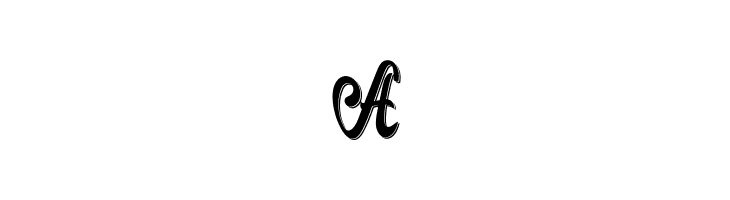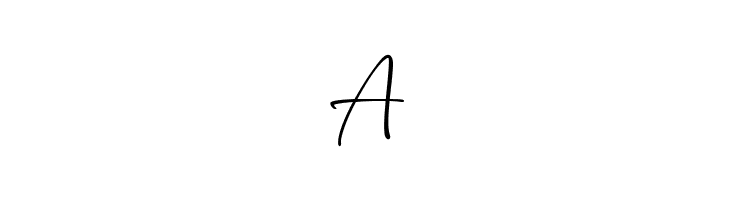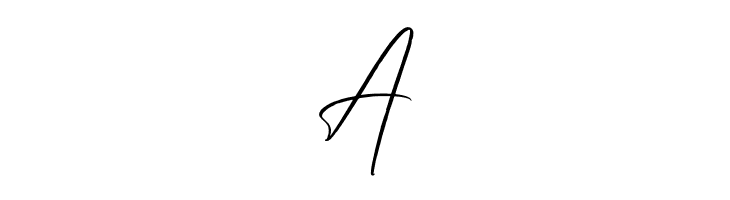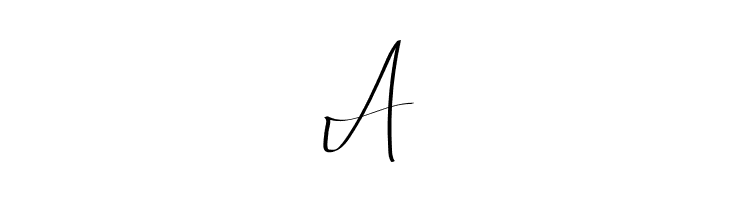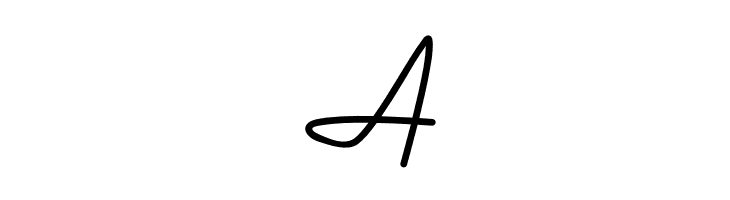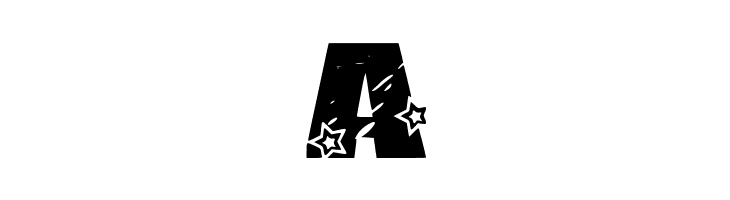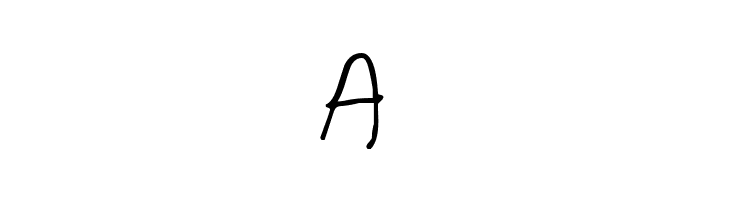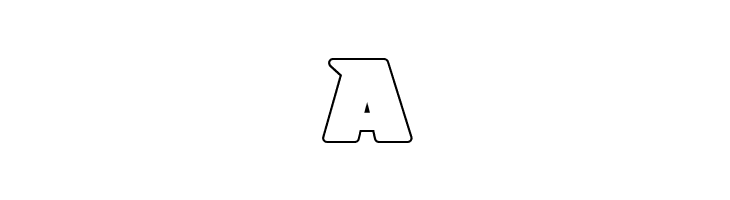
A flowing, cursive font with elegant, connected strokes.
A flowing, cursive script with elegant, handwritten characteristics.
A modern, elegant script font with flowing, cursive letters and intricate swashes.
A bold, geometric font with a futuristic and digital aesthetic.
A graceful and elegant script font with fluid, cursive strokes.
A casual and elegant handwritten font with smooth, flowing lines.
A casual, elegant handwritten font with fluid, connected letterforms.
A bold, distressed font with star patterns, perfect for impactful designs.
A modern, geometric sans-serif font with clean lines and a professional look.
A bold, modern sans-serif font with clean lines and geometric shapes.
A bold, oblique font with a modern and dynamic style.
A modern, oblique font with clean, geometric lines and consistent stroke widths.
A modern, geometric sans-serif font with clean lines and balanced spacing.
A sleek, modern oblique font with a light weight and clean, minimalist design.
A modern, geometric sans-serif font with a clean and professional look.
A modern, oblique sans-serif font with clean lines and dynamic style.
A bold, distressed font with a vintage, grunge aesthetic.
A bold serif font with high contrast and strong, elegant serifs.
A bold, elegant serif font with high contrast and classic styling.
A bold, modern serif font with elegant curves and strong strokes.
A bold, rounded font with a modern and approachable style.
A thin, elegant font with elongated strokes and a whimsical touch.
A playful, handwritten font with bold, irregular strokes and a casual, dynamic feel.
A bold, 3D font with strong outlines and shadow effects, ideal for impactful designs.
A bold, playful font with rounded, bubbly characters.
A bold, cursive font with decorative loops and high contrast, perfect for eye-catching designs.
A bold, geometric font with strong, angular lines and a modern, industrial feel.
A bold, geometric outlined font with a modern and edgy style.
A bold, futuristic font with angular, geometric shapes and a modern aesthetic.
A bold, oblique font with a futuristic and dynamic style.